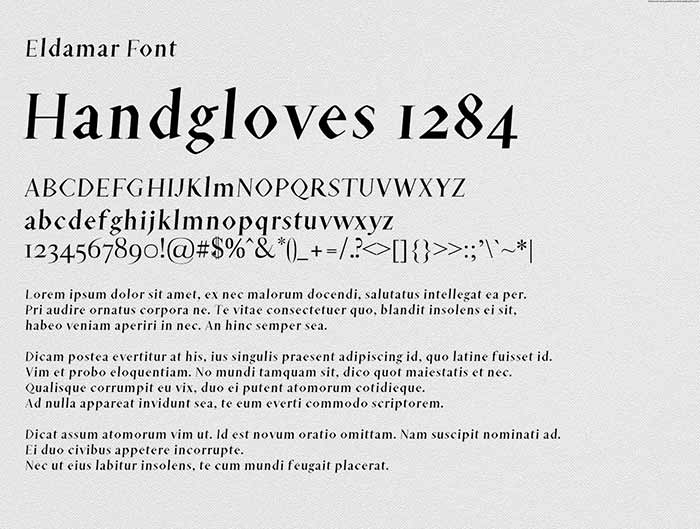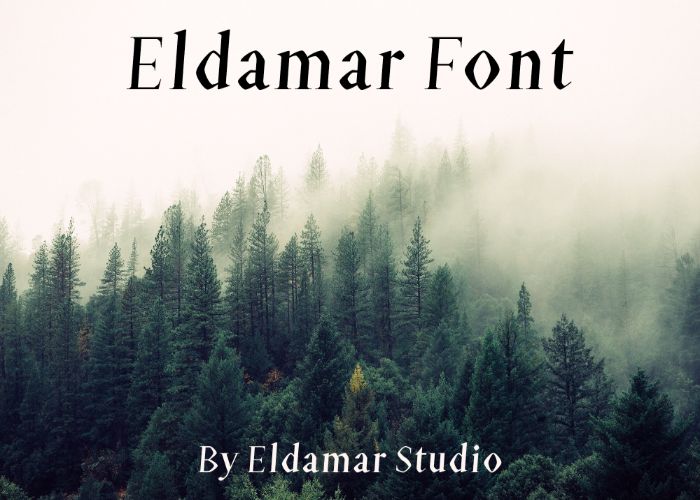
Eldamar Font it’s a wonderful free font for commercial use with a unique, detailed, and handmade look. These fonts look amazing in all caps with a wide-set spacing if you want to try a classy look, or beautiful on their own in the capital and lowercase letters for something completely timeless.
Perfect for gorgeous logos, displays, headers, invitations, save the dates, weddings, titles, web layouts, branding, etc.